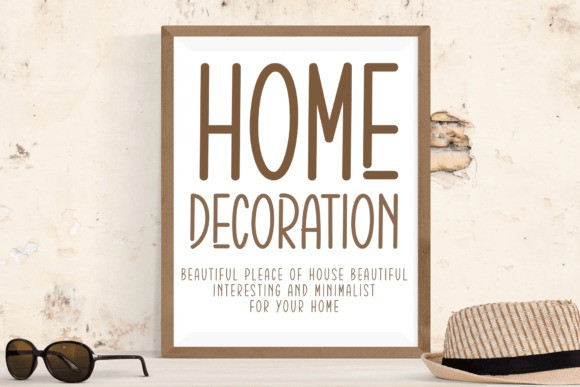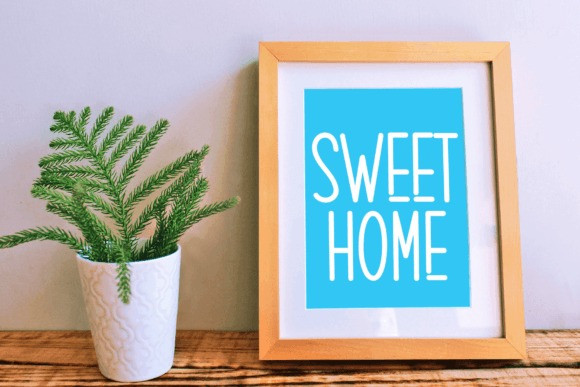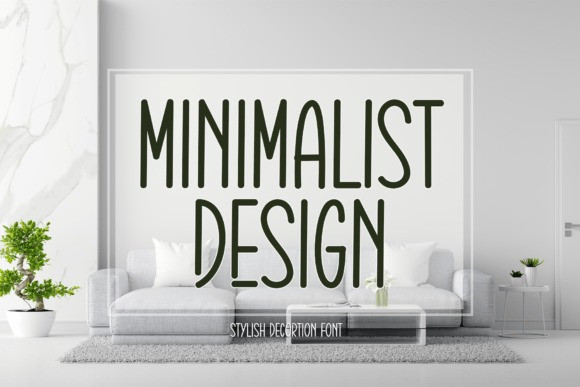
Minimalist Design Font
Minimalist Design Font is a luxury handwritten font, described by an elegant touch, perfect for your favorite projects. Fall in love with its incredibly distinct and timeless style and use it to create spectacular designs!